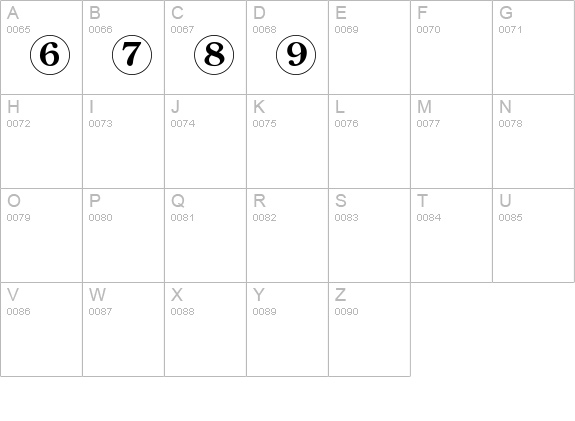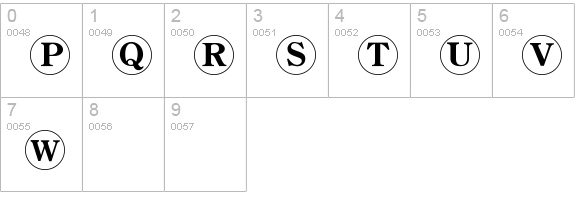
TQF_Keycaps_2 Font Details
Introducing TQF_Keycaps_2, a stunningly versatile and visually captivating font that effortlessly combines style and functionality. This font is a true testament to the artistry and precision of typography, designed to captivate and inspire. TQF_Keycaps_2 is meticulously crafted with a keen attention to detail, ensuring every curve and line is perfectly proportioned. Its sleek and modern design effortlessly commands attention, making it the perfect choice for any creative project. With its wide range of characters and symbols, TQF_Keycaps_2 offers unrivaled versatility. Whether you're designing a logo, creating a brand identity, or crafting eye-catching headlines, this font has you covered. Its unique and distinctive letterforms are sure to leave a lasting impression on any audience. But what truly sets TQF_Keycaps_2 apart is its availability as a free download. That's right, this exceptional font is freely available for download at FontsMarket.com. Now, you can add a touch of sophistication and elegance to your designs without breaking the bank. So why wait? Discover the endless possibilities that TQF_Keycaps_2 has to offer. Download it today and unlock the potential to create stunning and memorable designs that will leave a lasting impact.